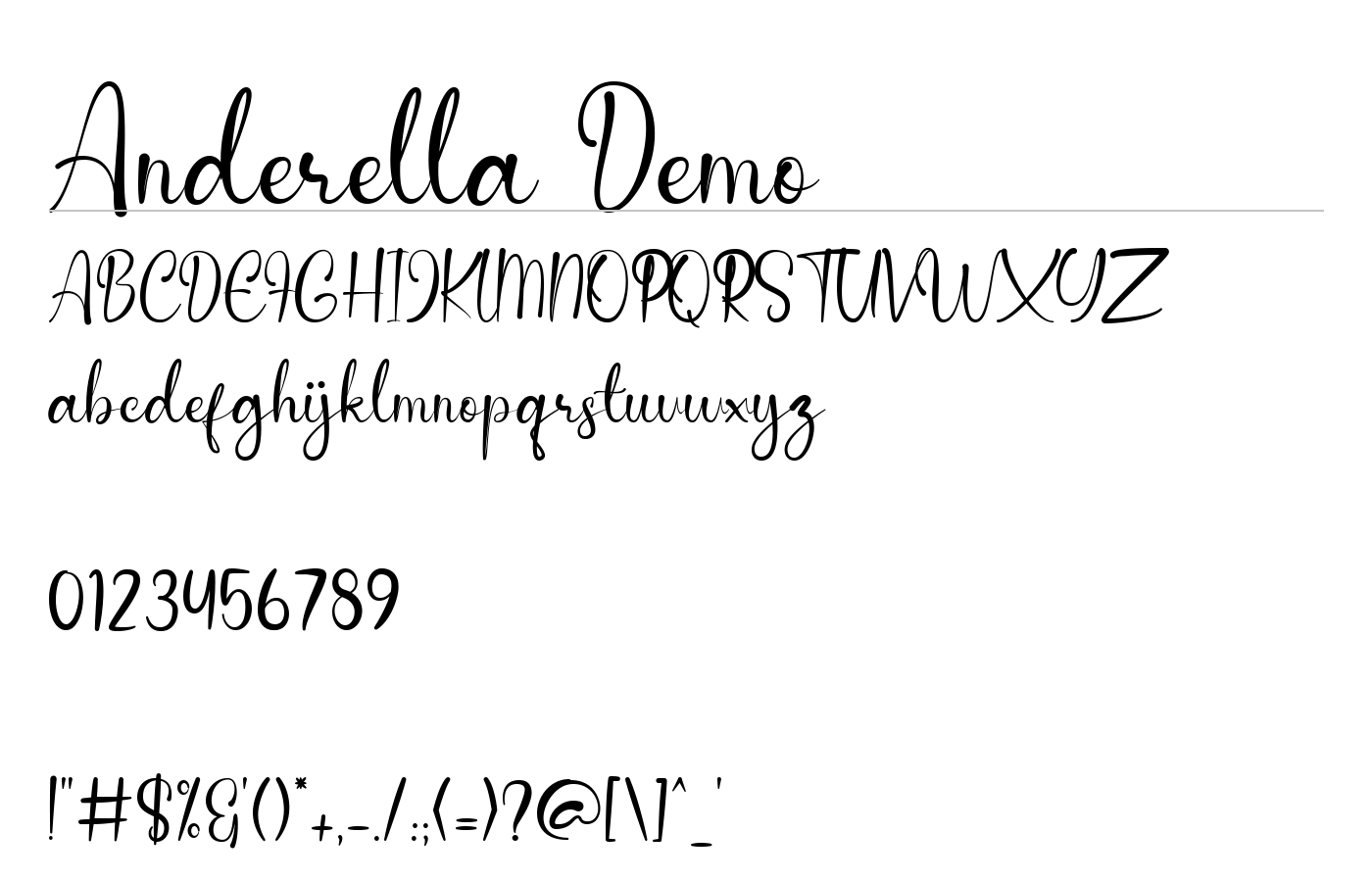
Anderella is a delicate, elegant script font with a handwritten feel, featuring smooth, flowing strokes and a clean, airy structure. Its thin, slightly varied line weight and playful letterforms make it perfect for feminine, romantic, or creative branding, invitations, and headlines where a touch of warmth and charm is desired. This font shines in fashion, wedding, and boutique designs, adding a soft, personal touch without sacrificing readability.
Anderella Font